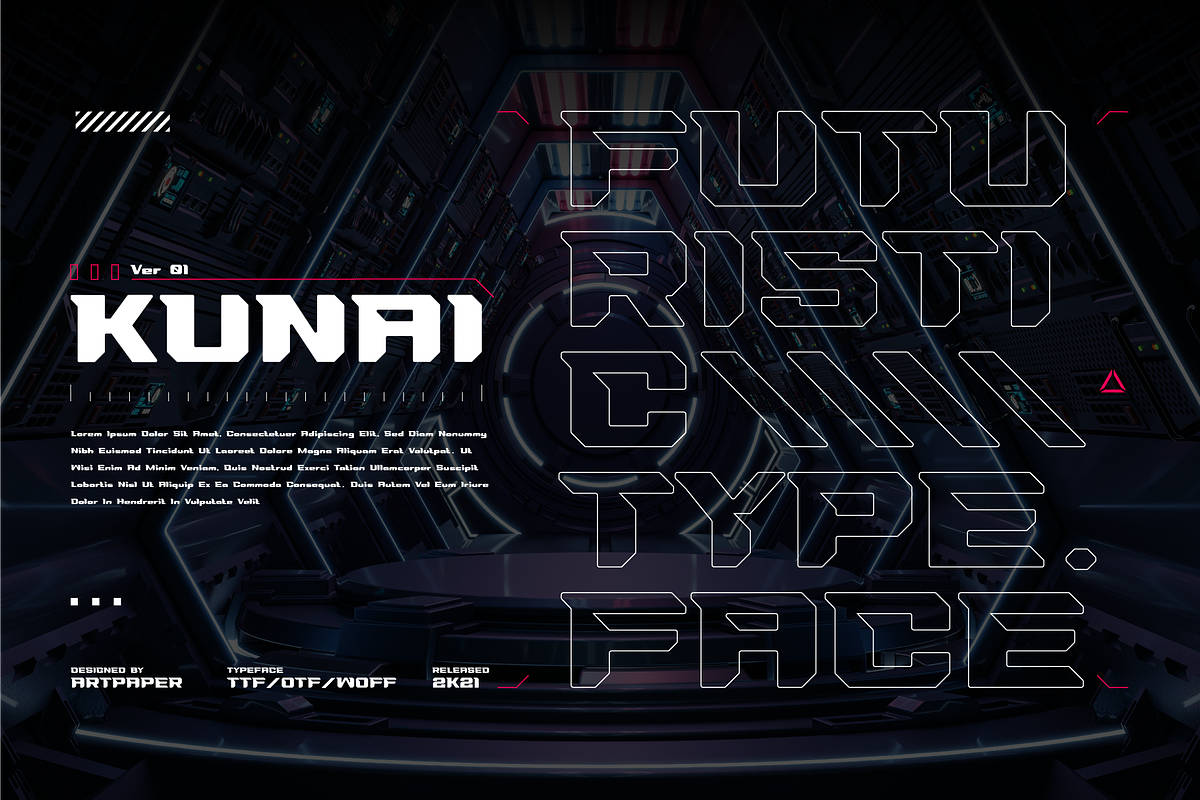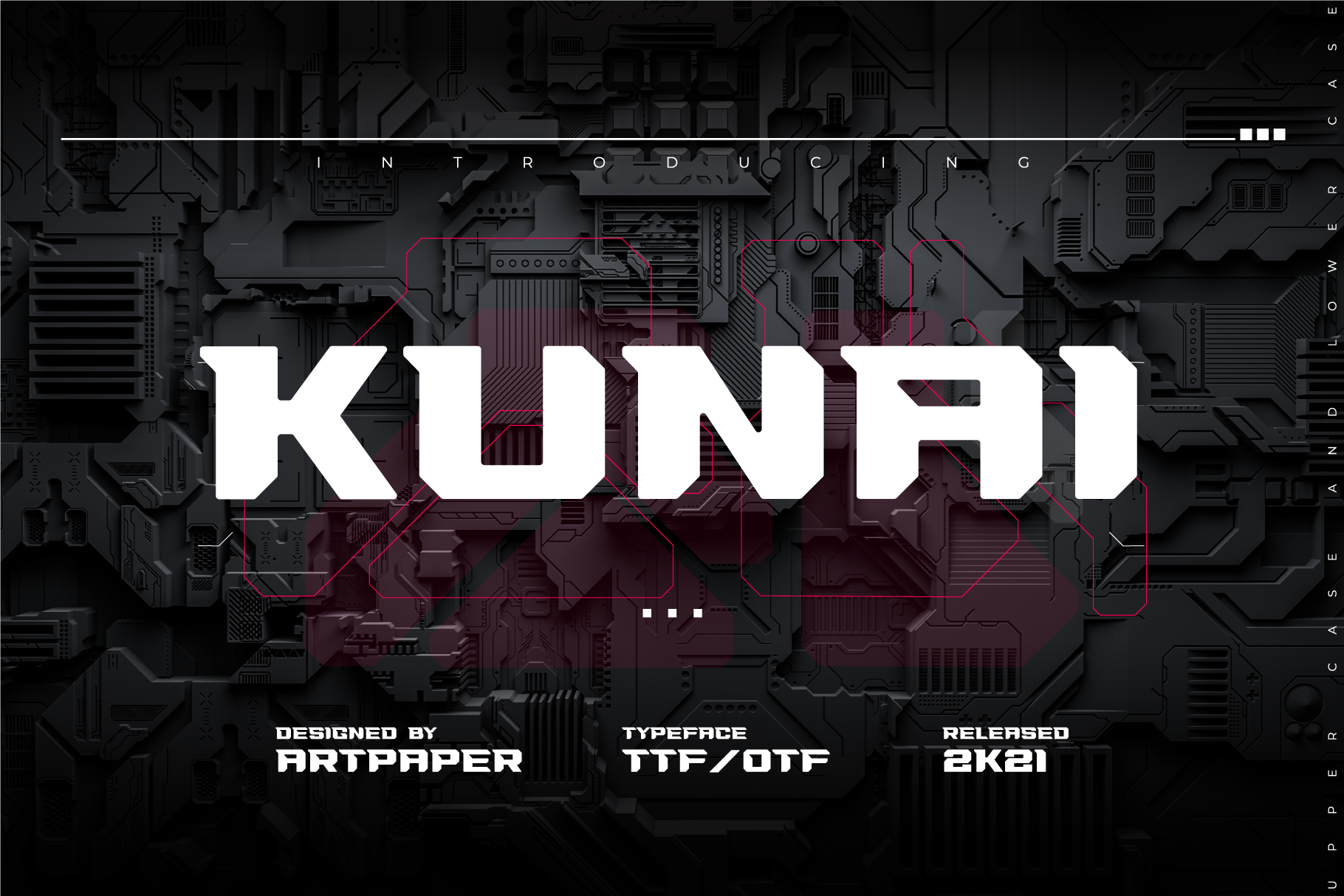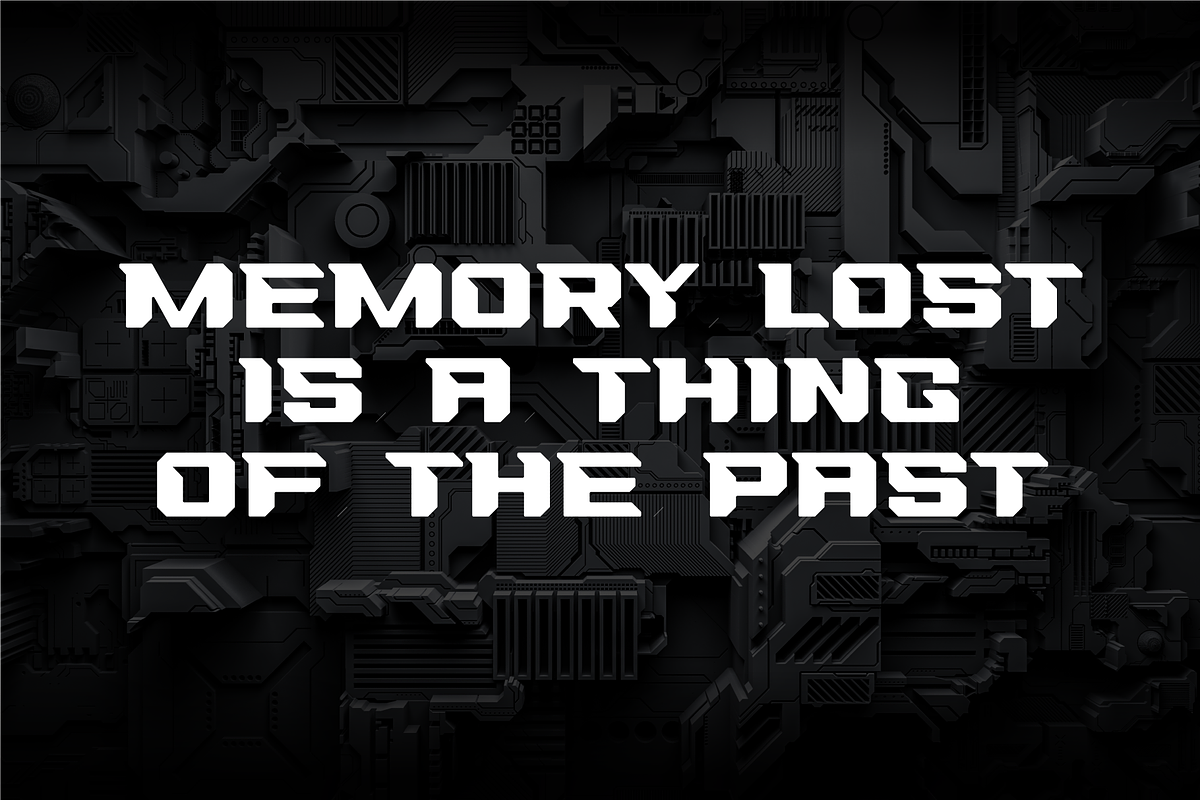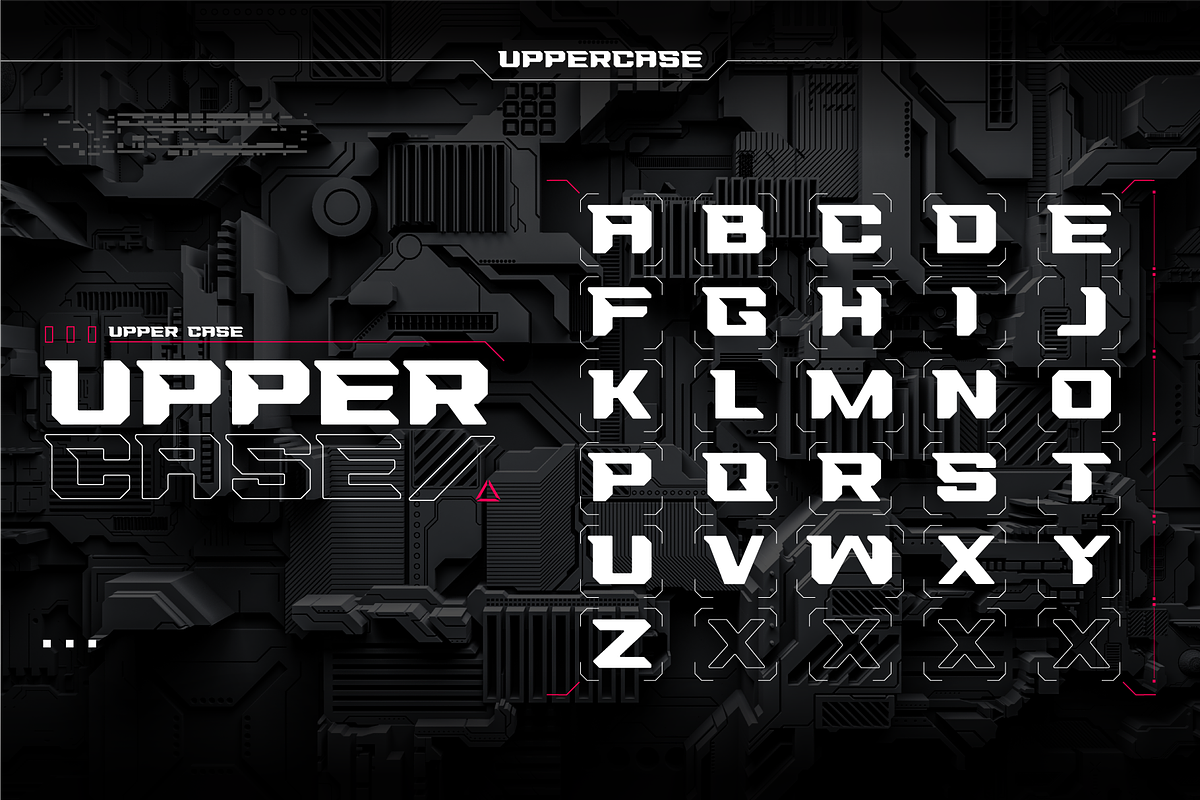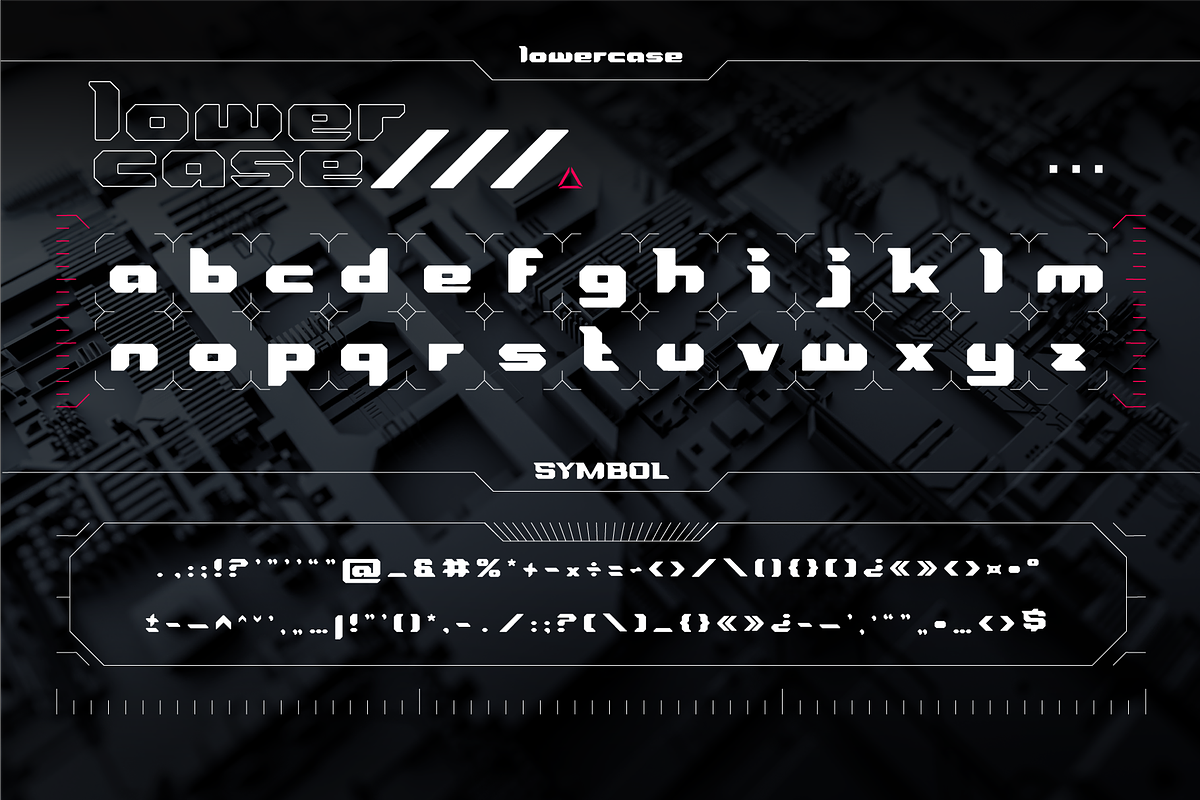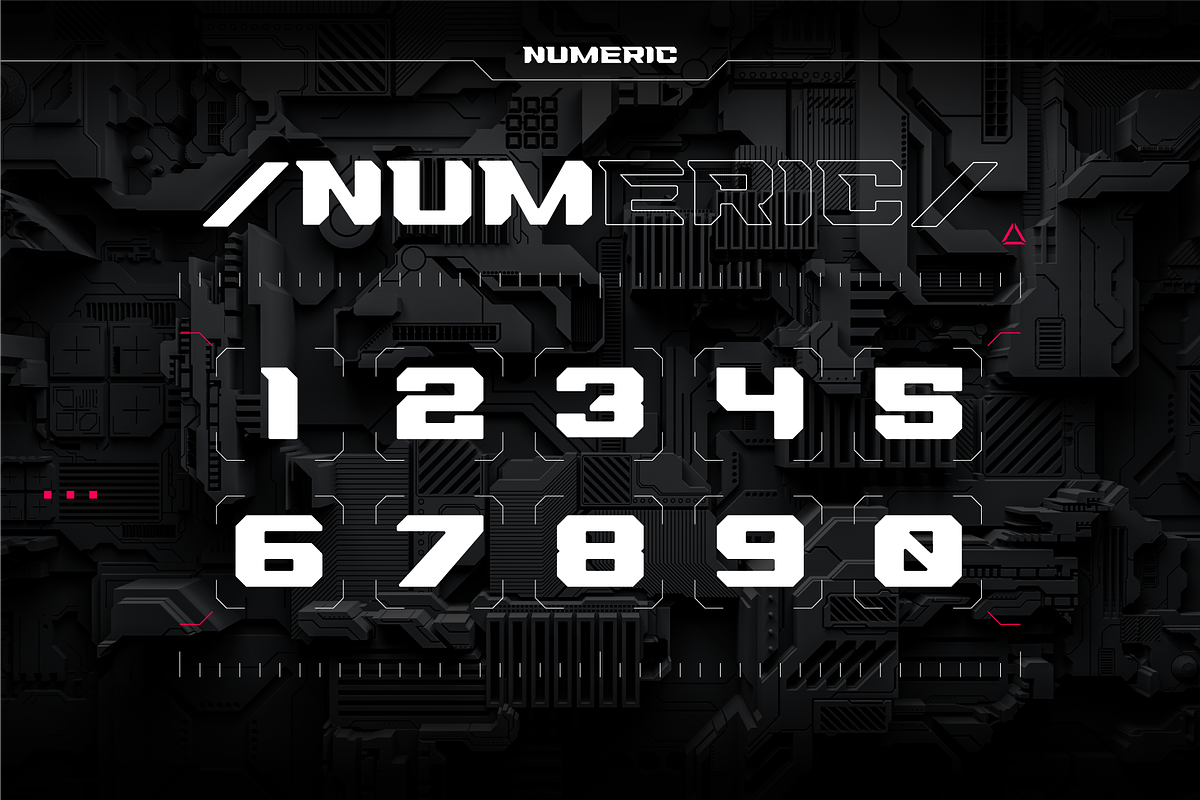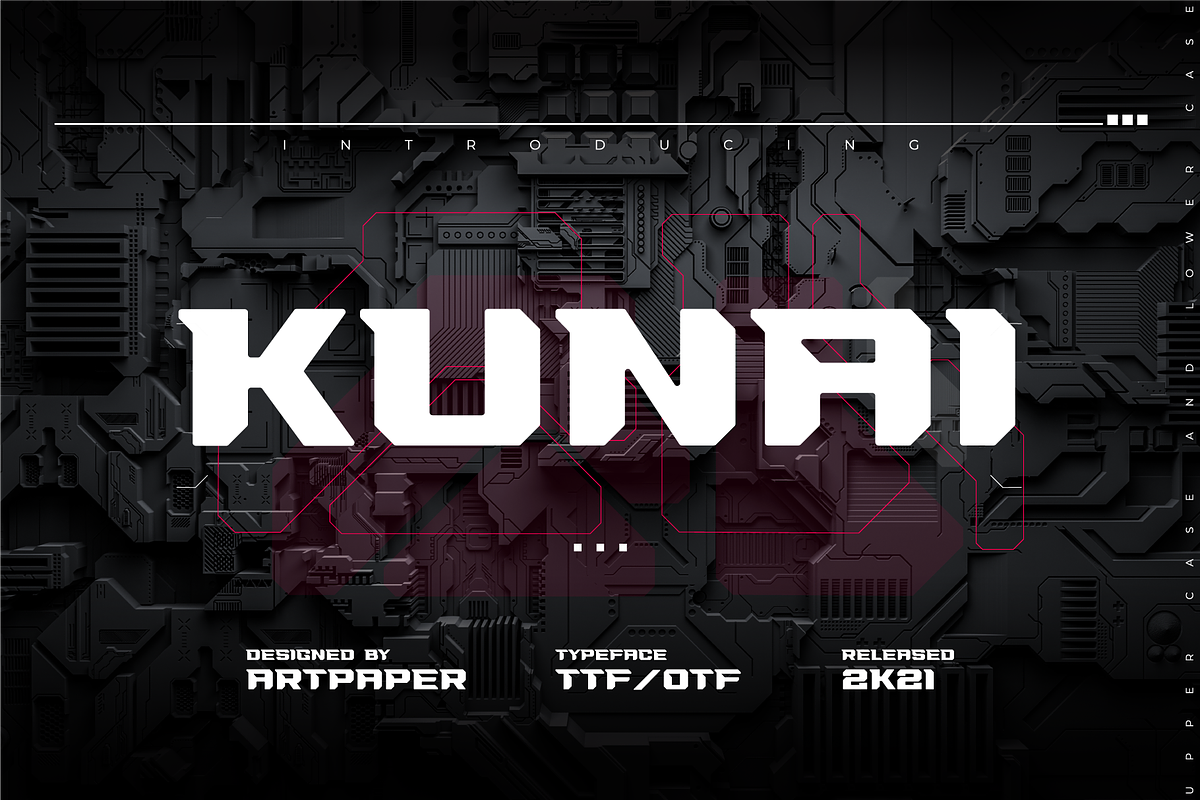
KUNAI Display Font. Futuristic Type
KUNAI is unique futuristic and cyberpunk type font design. this font suitable for modern, game, racing, street themes, hypebeast, trendy, etc. use this font for your cool design project.